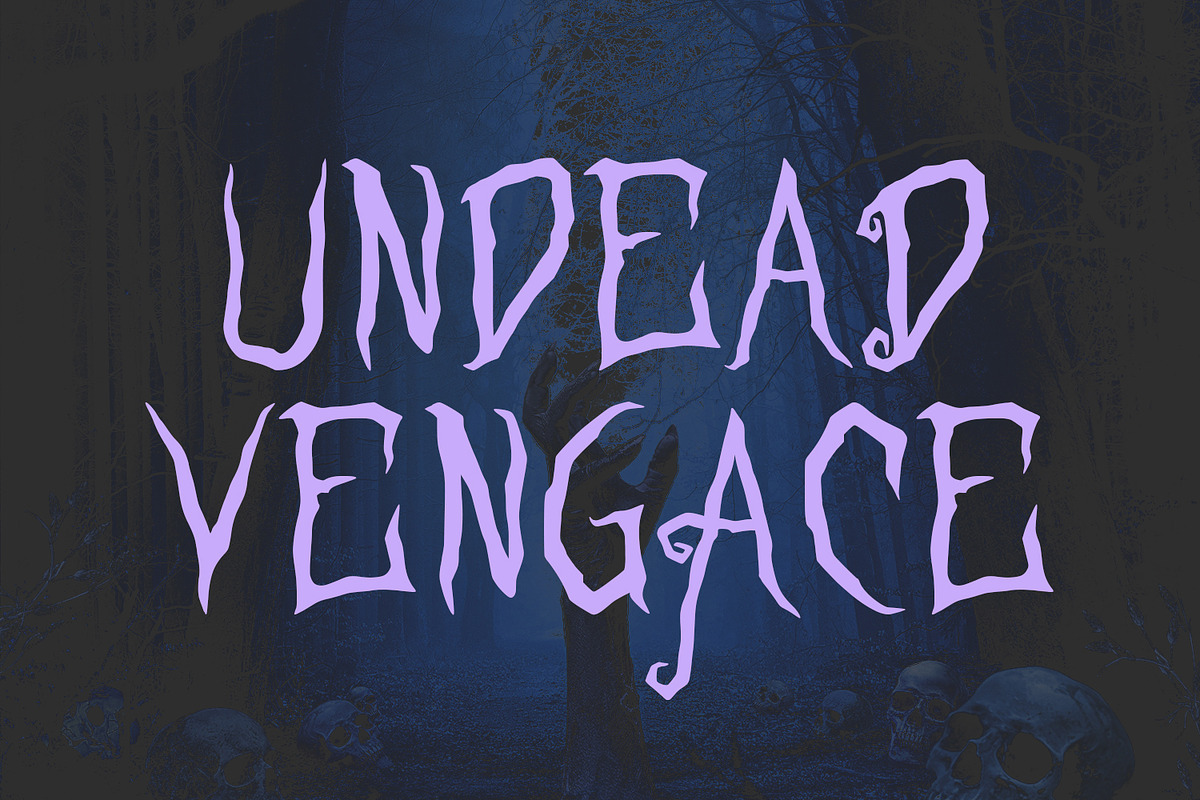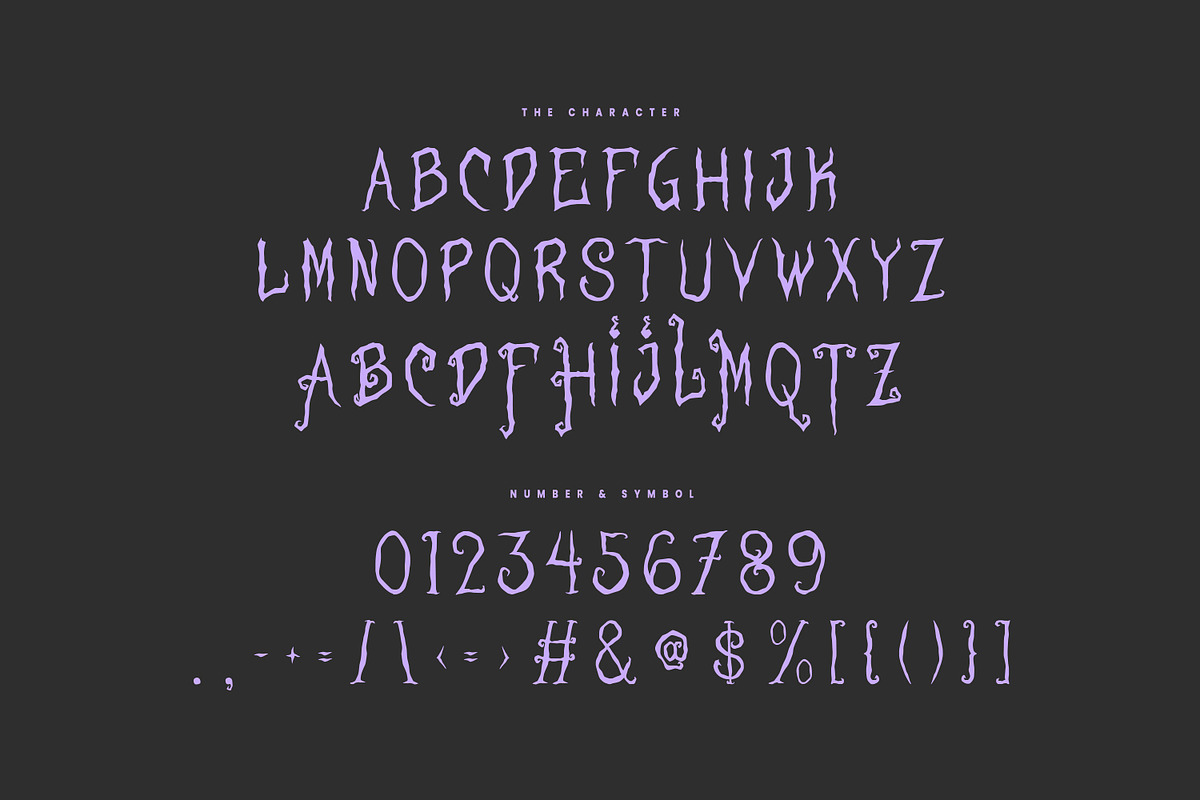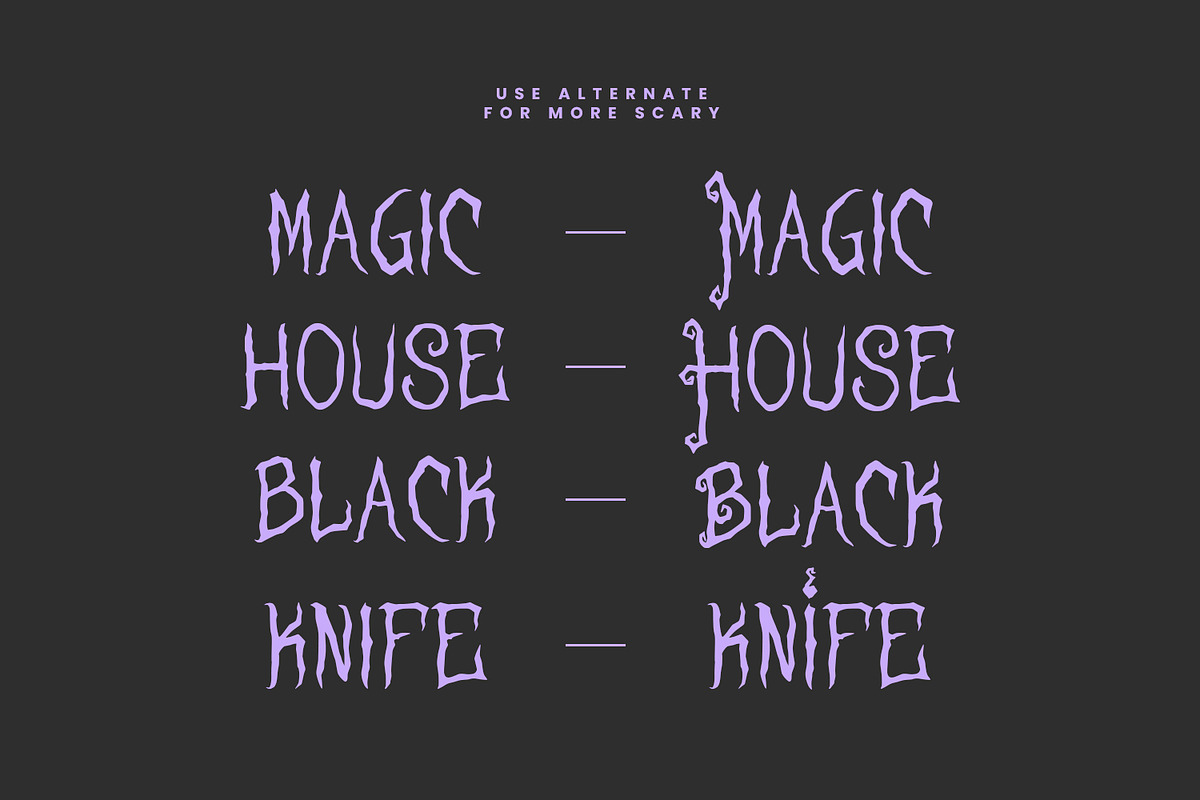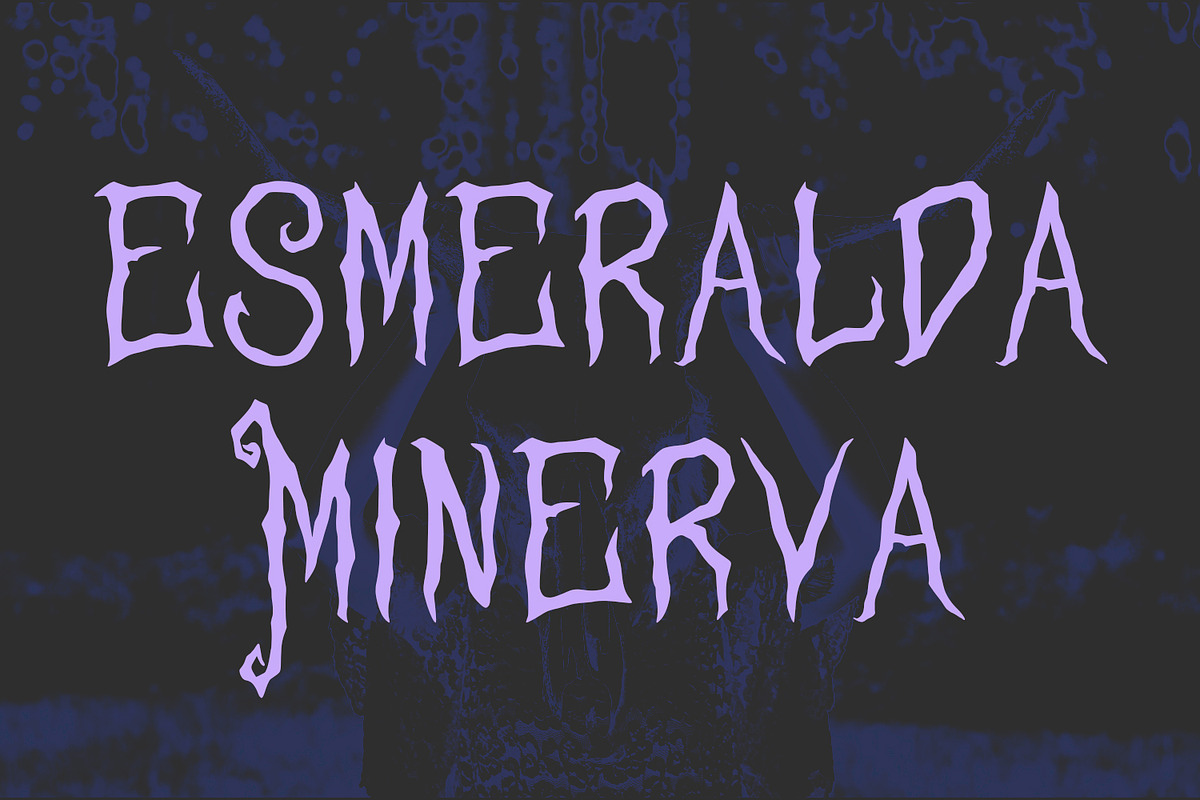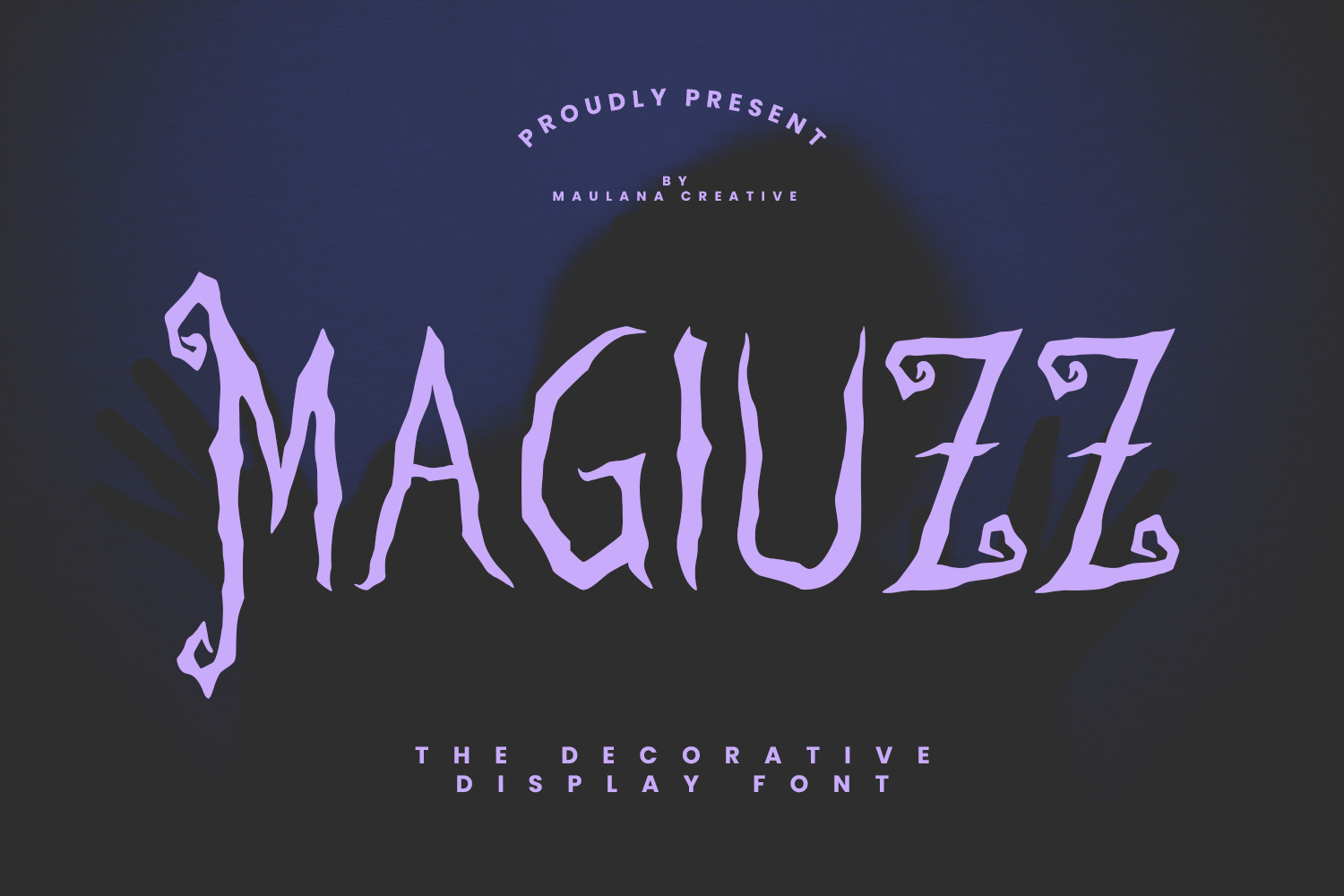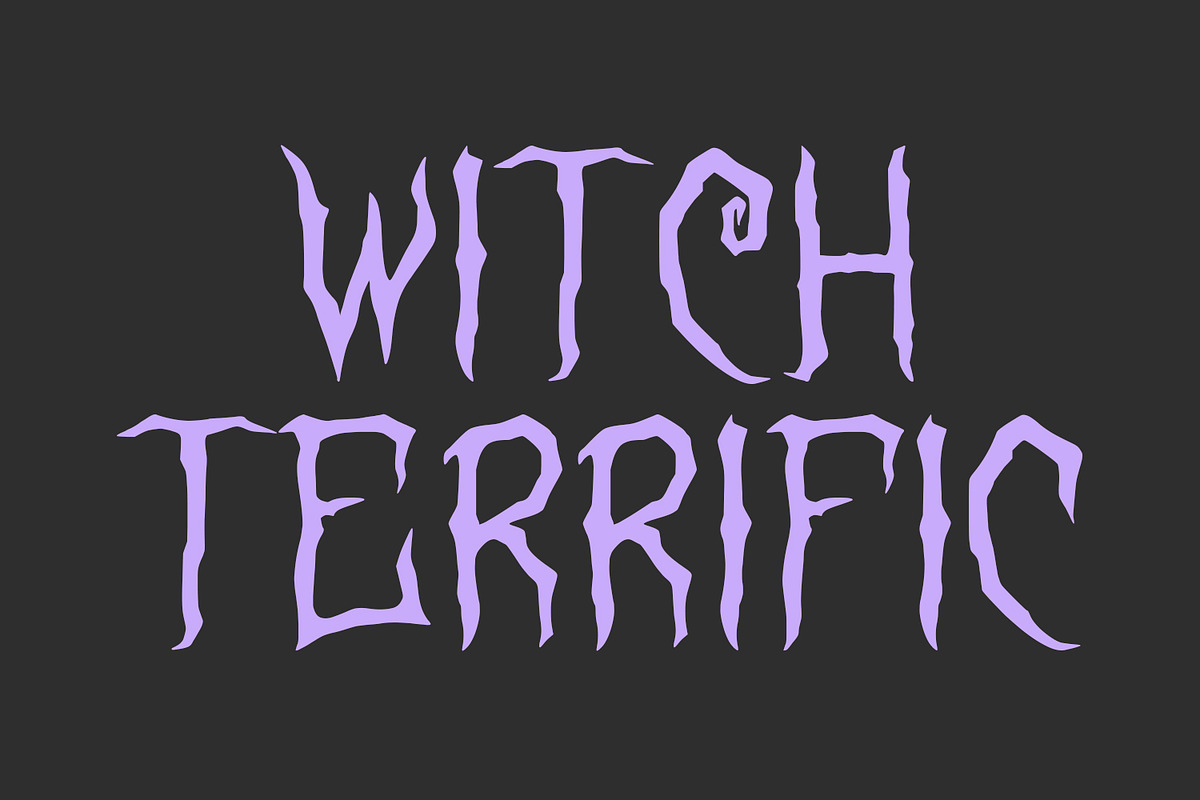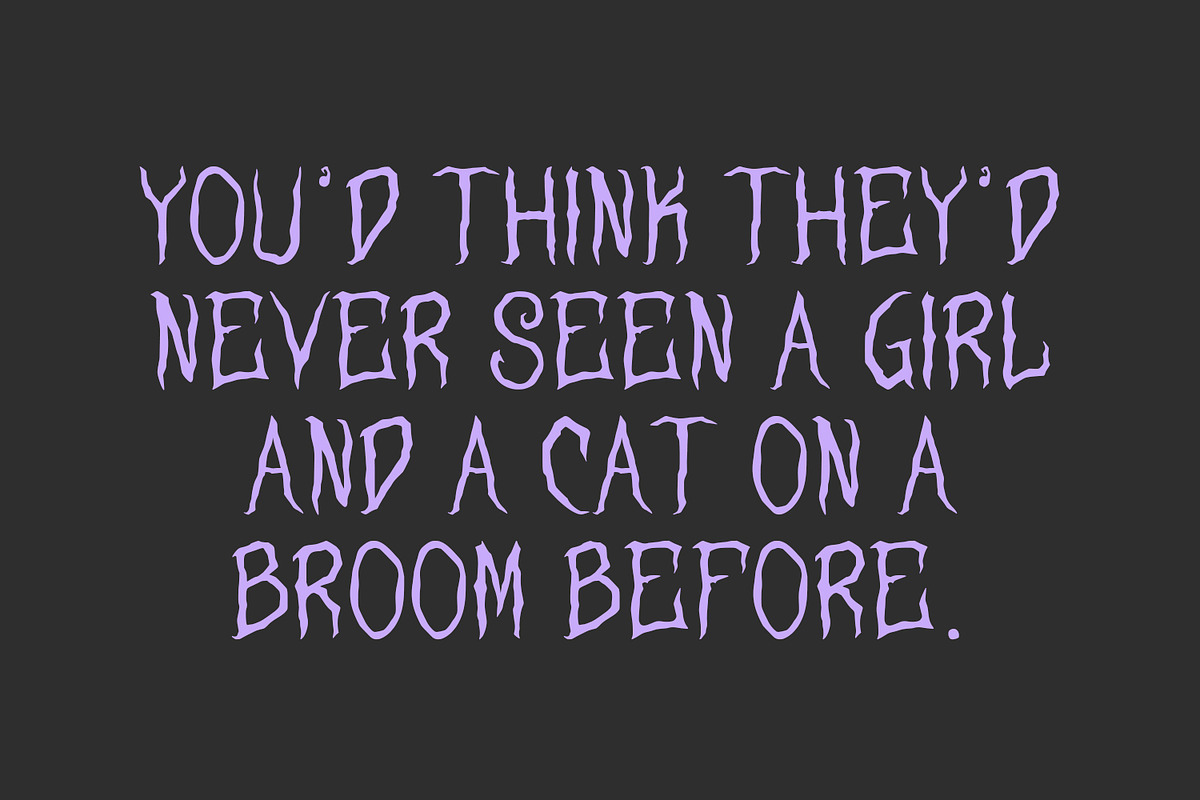
Magiuzz Decorative Display Font
Magiuzz is a decorative display font. With bold tall and sharp stroke, fun character with a bit of ligatures and alternates. To give you an extra creative work. Magiuzz font support multilingual more than 100+ language. This font is good for logo design, Social media, Movie Titles, Books Titles, a short text even a long text letter and good for your secondary text font with sans or serif. Make a stunning work with Magiuzz font.